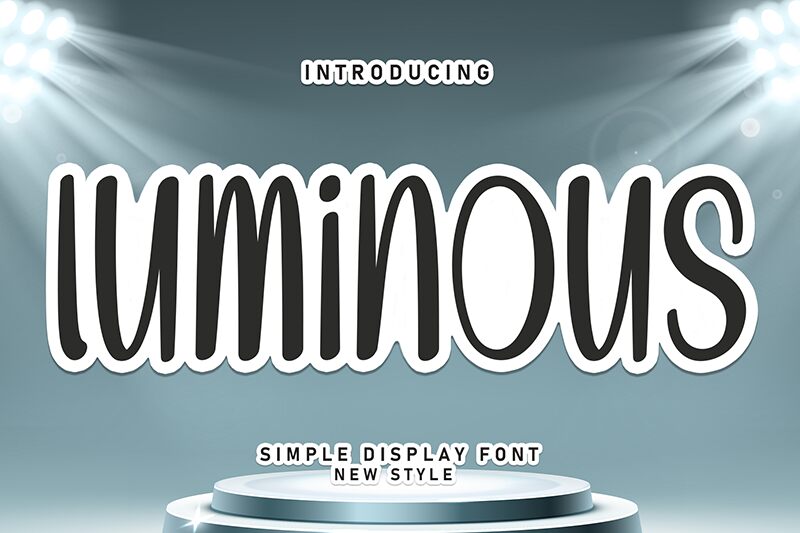
Luminous
Luminous font by Andi Moz is a handwritten style with a hand-drawn appearance and casual style. The typeface has an organic feel to it that results in an energetic impression and modern aesthetic. Luminous’s characters also have condensed width, where all these features put together give the font its distinctive look.
Use Luminous in book cover designs, movie posters, home décor items, print art, invitations for weddings or birthdays, picture captions, blogs or vlogs content creation images and videos, restaurants menus/signs/labels/tags postcards design projects as well as t-shirts.